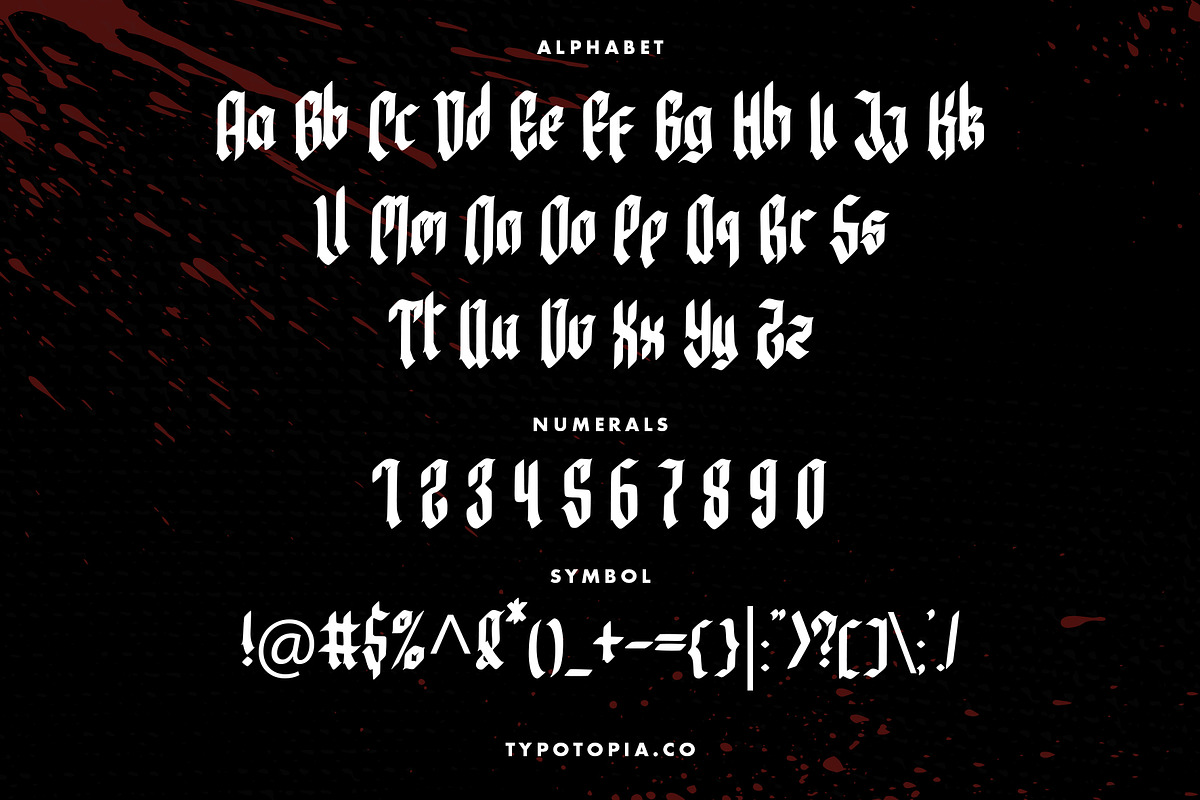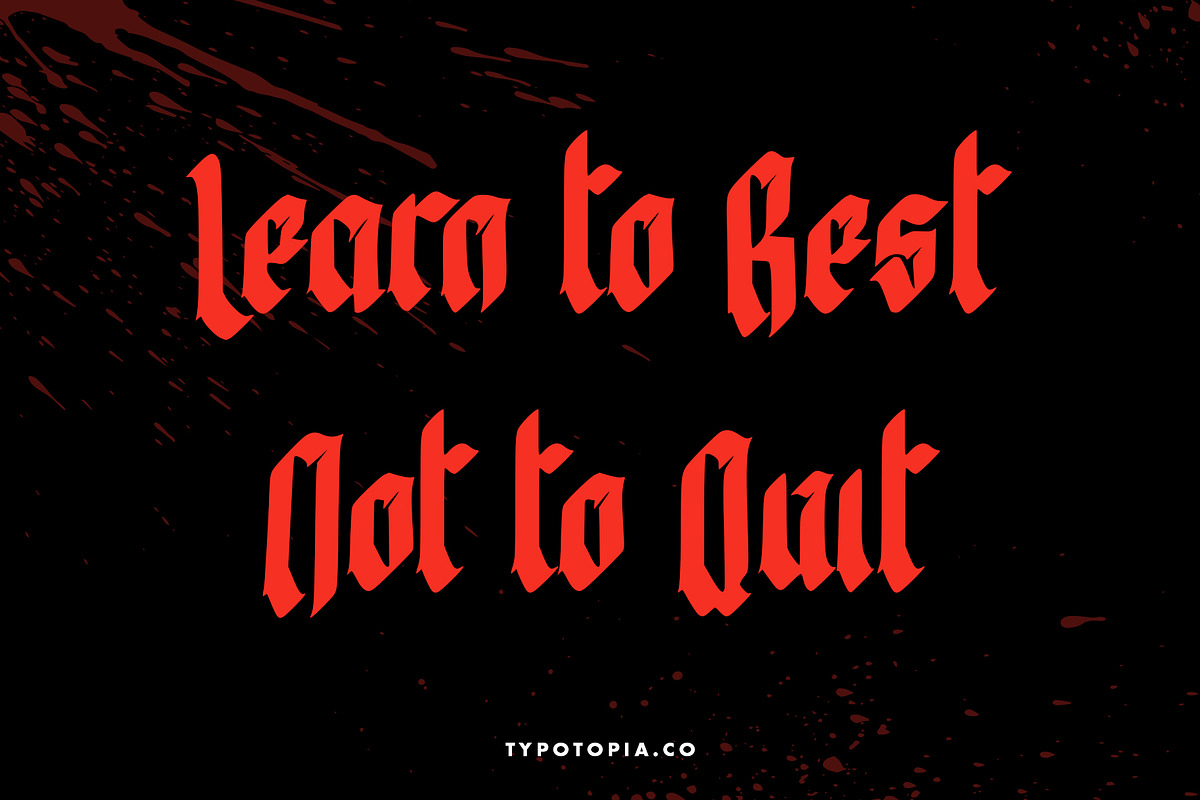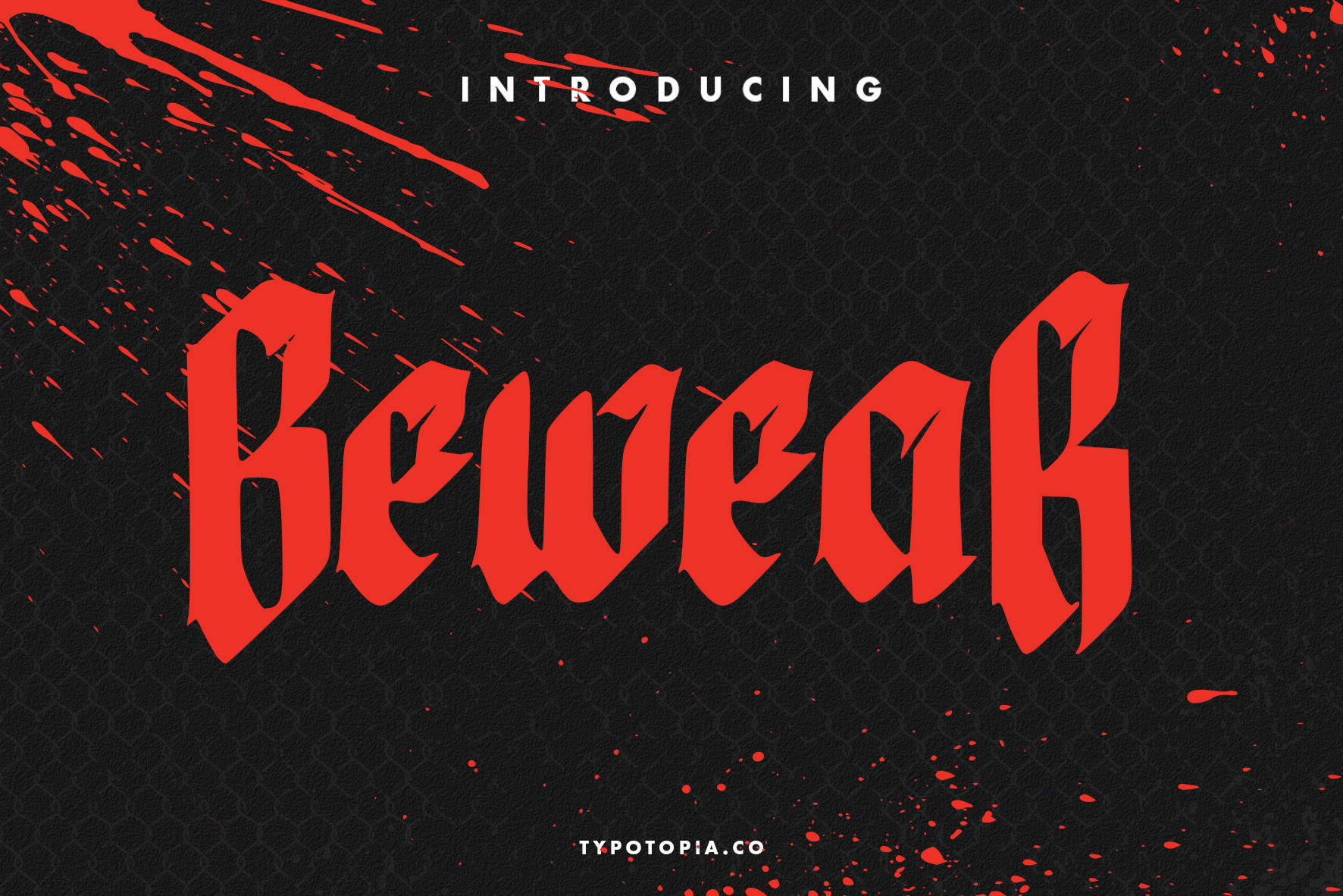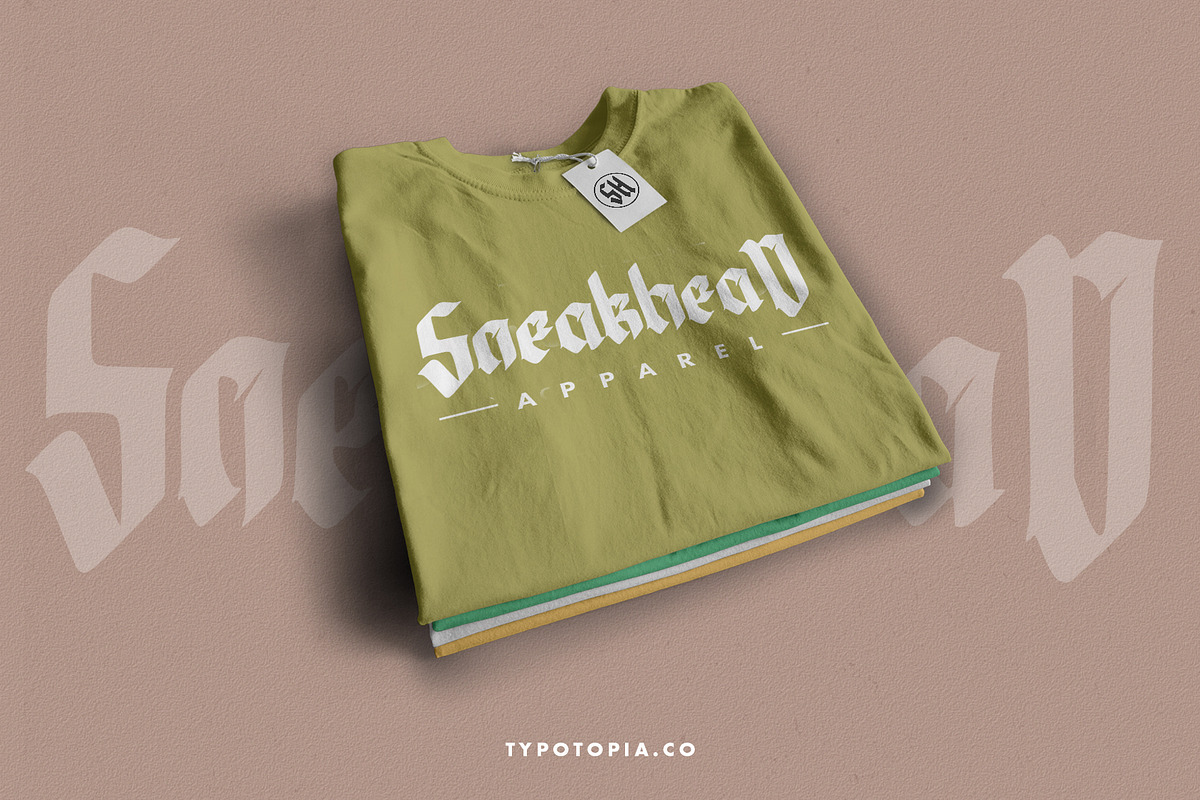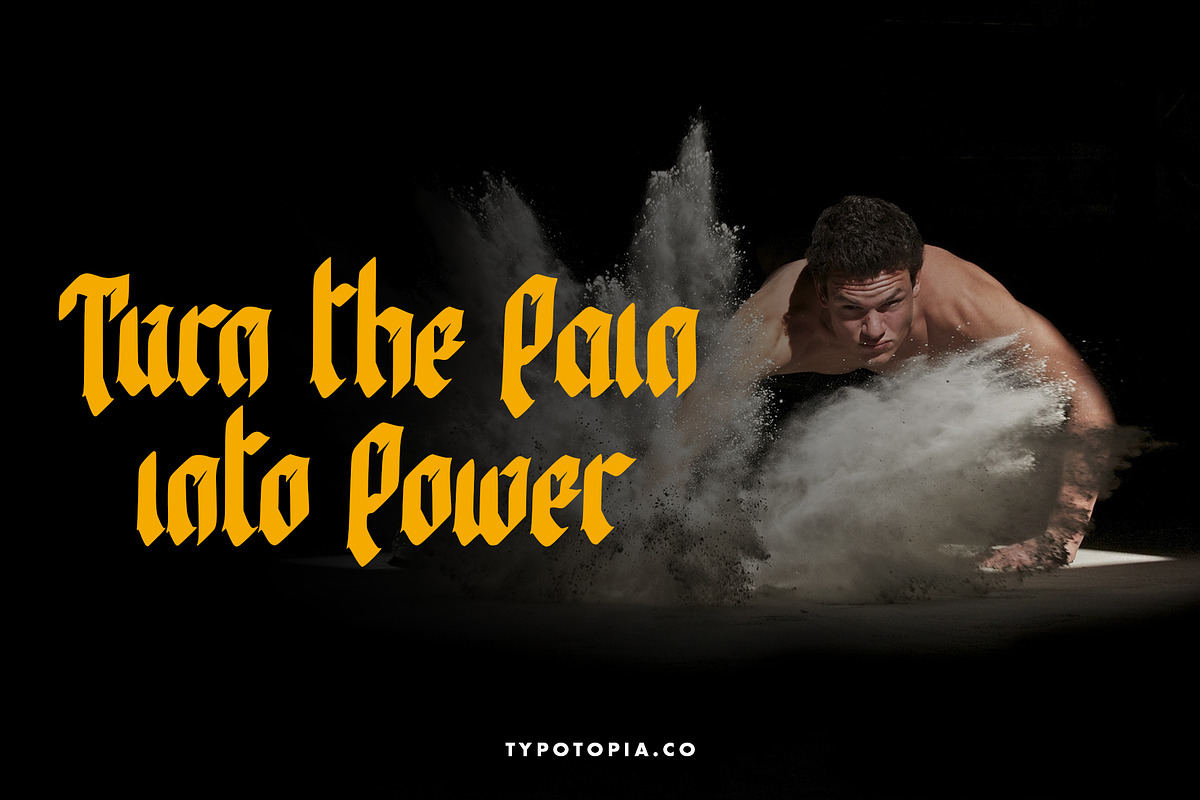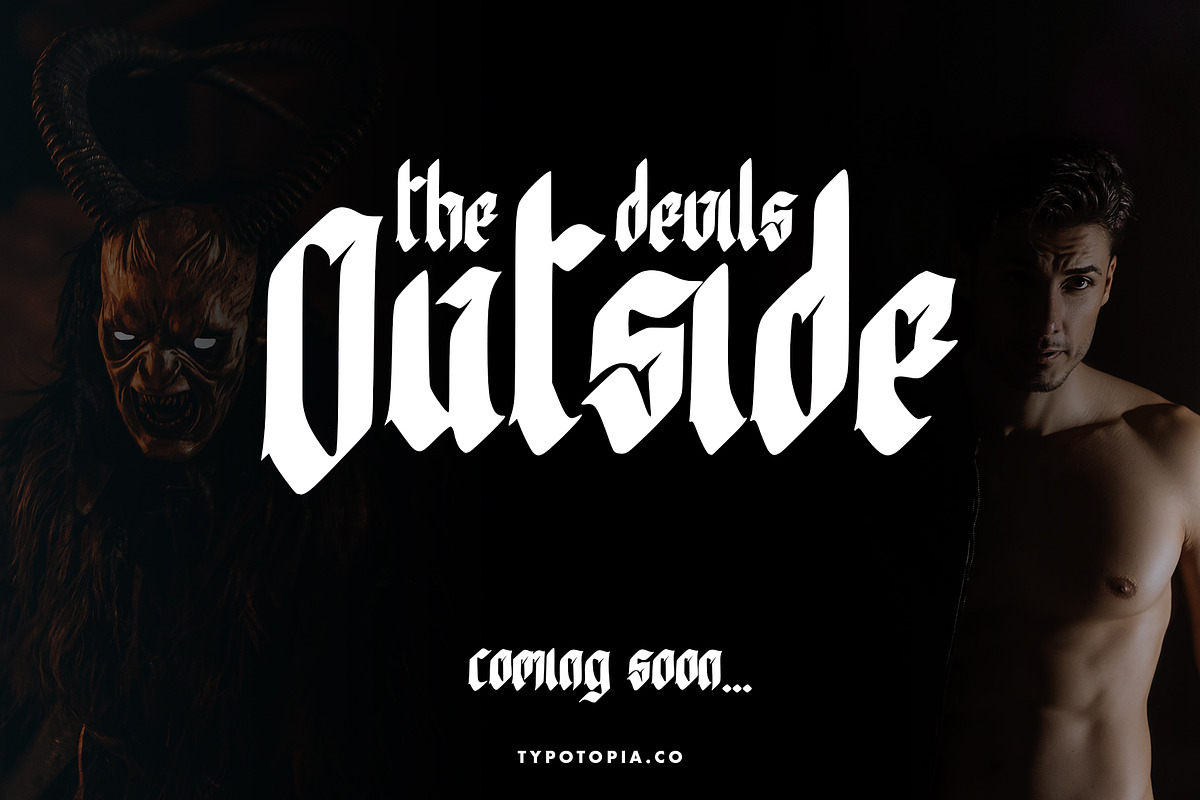
Bewear Creepy Font
Introducing, Bewear an incredibly Unique and Interesting Display Font!!
Bewear is an incredibly Unique and Interesting Display Font for your Design that is absolutely great for your next creative project such as logos, printed quotes, invitations, cards, product packaging, headers, Logotype, Letterhead, Poster, Apparel Design, Label, and etc.
This Versatile Font includes also support a Multilingual Characters. Making this Font a Swiss Army knife in your Font Library. It's extremely fun to use as each word can be transformed to your liking.